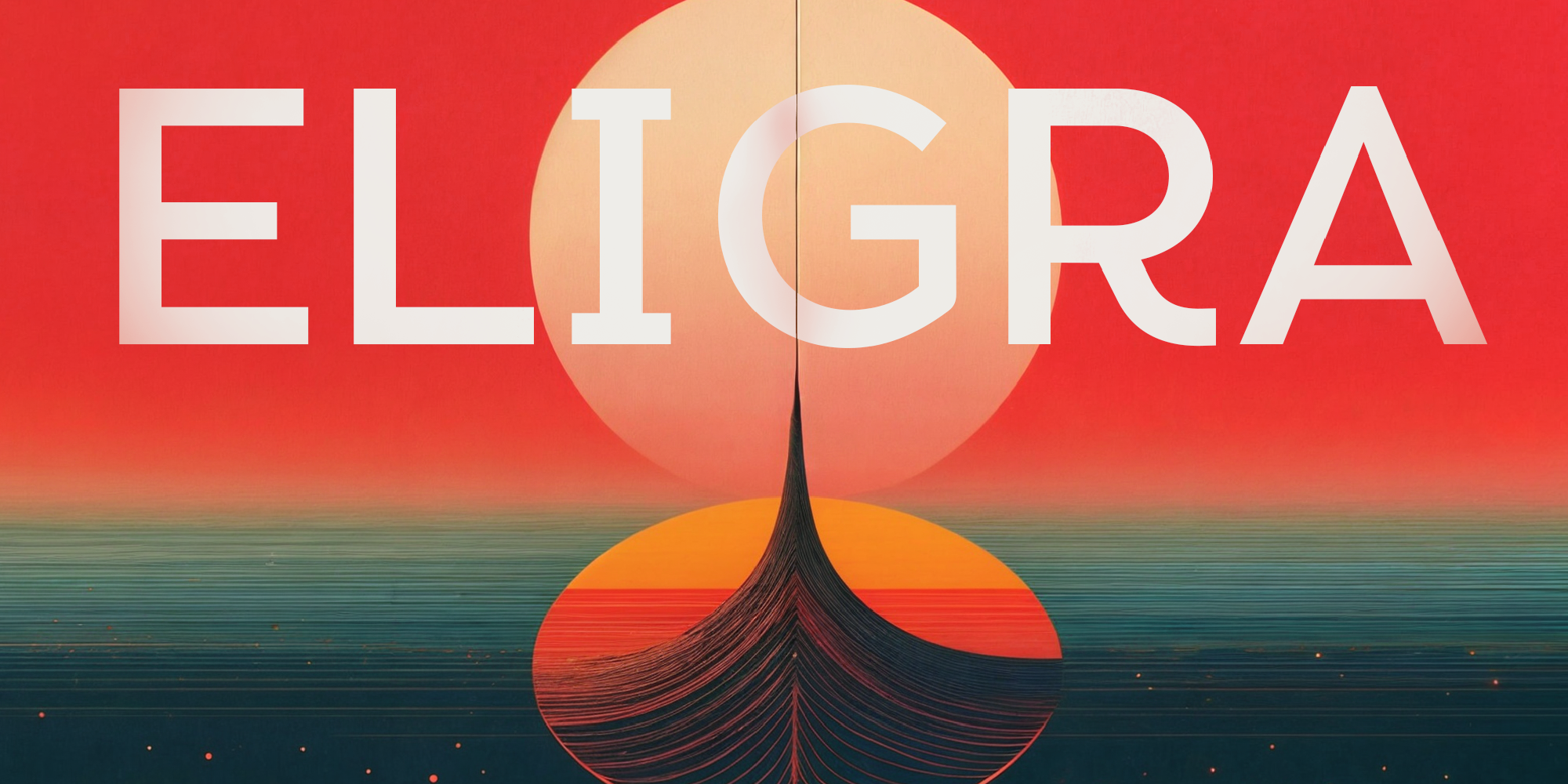
Eligra Font is perfect for various applications including elegant wedding invitations, luxury brand identities, high-end fashion magazines, sophisticated logos, premium packaging design, boutique websites, upscale restaurant menus, art gallery exhibitions, jewelry branding, and refined marketing materials.
What makes Eligra Font so exciting is its exquisite blend of graceful elegance and modern sophistication. This stunning typeface features fluid letterforms with delicate curves and refined details that create an atmosphere of luxury and timeless beauty. The font's graceful character and impeccable balance make it ideal for brands that want to convey premium quality, exclusivity, and sophisticated taste to discerning audiences who appreciate fine craftsmanship.
Eligra Font family includes multiple weights and styles: Thin, Light, Regular, Medium, Bold, Black, Condensed, Extended, and beautifully crafted Italic variants. Each family member maintains the font's signature elegance while offering different levels of visual impact and stylistic versatility for diverse luxury design applications.
The Eligra Font Free Download offers designers access to a premium typeface that excels in luxury markets and high-end creative projects. Whether you're developing exclusive brand identities, designing sophisticated marketing campaigns, or creating elegant digital experiences, this font delivers the refined aesthetic needed to attract affluent consumers. Its graceful styling and contemporary refinement make it particularly effective for luxury goods, premium services, and exclusive lifestyle brands.
Typography enthusiasts will appreciate the meticulous attention to detail in Eligra Font's design. The font features carefully crafted letterforms, optimized kerning pairs, and perfectly balanced proportions that ensure exceptional readability and visual harmony. From intimate body text to commanding display applications, this typeface maintains its elegance and sophistication across all design contexts.
For luxury web designers, Eligra Font provides outstanding performance in premium digital environments and high-resolution displays. The font's technical specifications are optimized for modern web standards while maintaining the crisp, refined edges that define its elegant character. Its versatility makes it suitable for both static presentations and dynamic interactive experiences.
Creative professionals working in fashion, beauty, hospitality, and luxury consumer goods will find Eligra Font to be an indispensable tool for projects requiring sophisticated visual communication. The font's ability to convey exclusivity, refinement, and premium quality makes it invaluable for brands targeting luxury markets and affluent demographics.
Design agencies specializing in high-end brands appreciate Eligra Font's versatility in creating memorable luxury identities that stand out in competitive markets.